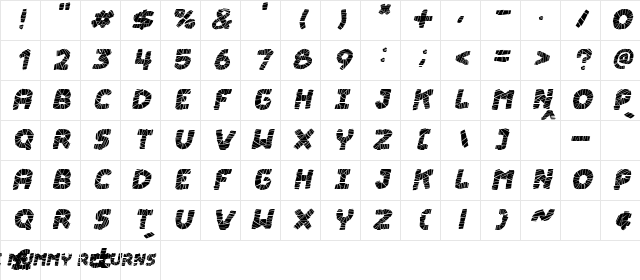
The Mummy Returns Italic Free Font
The Mummy Returns Italic
Design Context for The Mummy Returns
The Mummy Returns is a composed and adaptable typeface that performs quietly and consistently across a wide range of design contexts. The slanted form adds forward momentum and visual energy.
Pro Tip: Use The Mummy Returns for emphasis, pull quotes, and subheadings where its slanted energy can add rhythm to the layout.